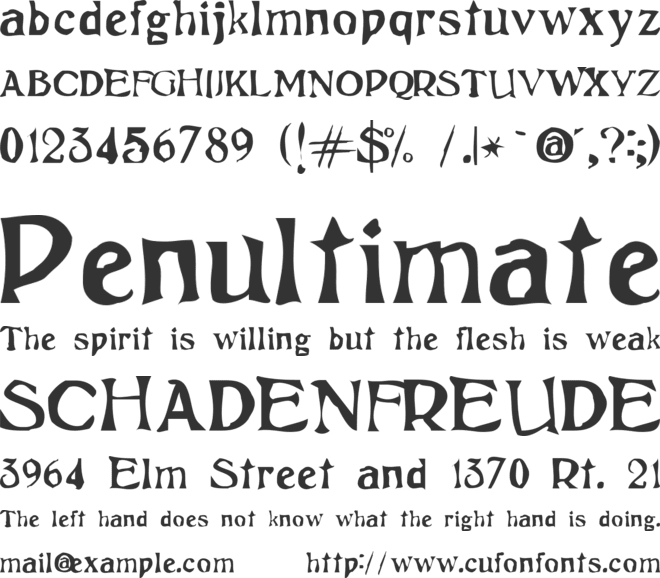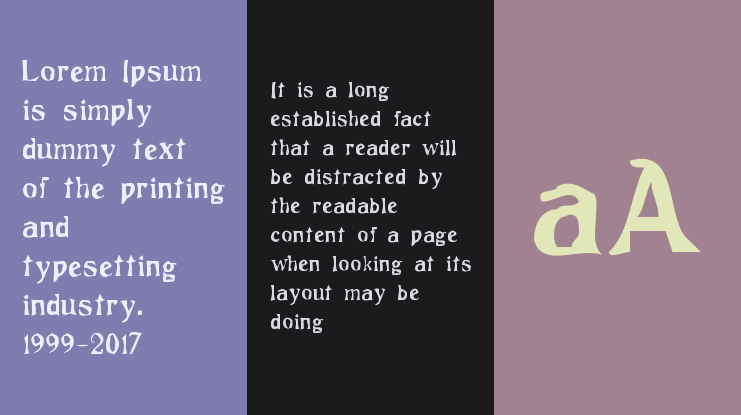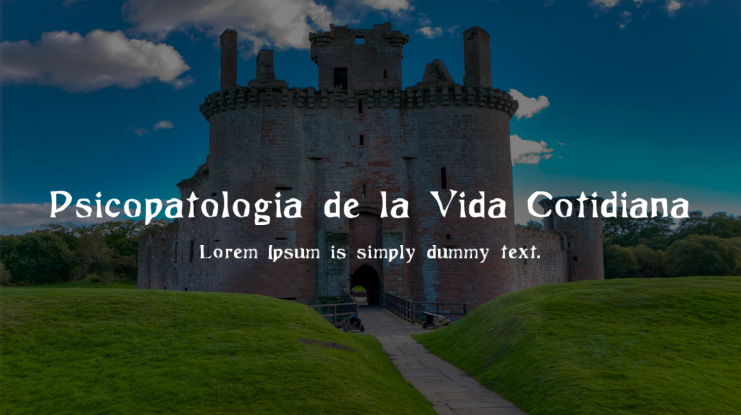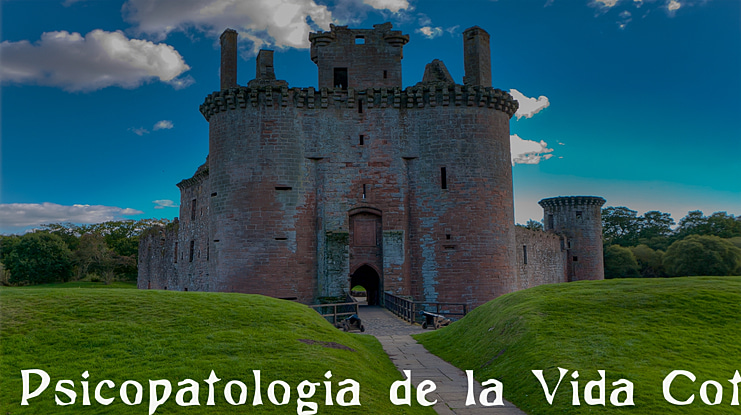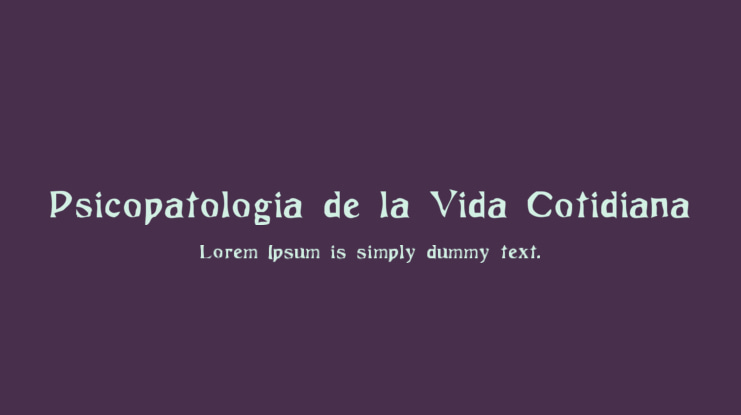
Psicopatologia de la Vida Cotidiana Font
Daniel Leal Werneck
Extracted from a 1922 spanish edition of Sigmund Freud's "Psychopathologie des Alltagslebens" (1901).
Some characters have been reconstructed based on the original ones (example: + made out of two -, etc) because the original book simply did not contain them. I hope you don't need to use the & very much...